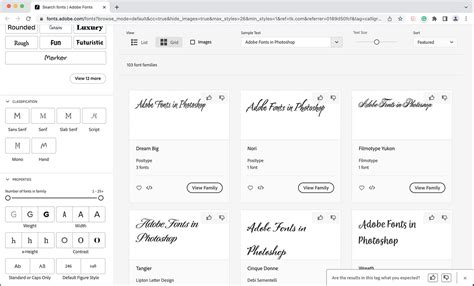
Discover How To Unlock the Creative Power of Fonts in Photoshop and Make Your Designs Come Alive!
Are you ready to unleash the creative power of fonts in Photoshop and make your designs come alive? Have you ever felt like your designs just don't stand out? Or that they look the same as everyone else's? Well, if you want to break the mold and create something unique and eye-catching, then you need to learn how to use fonts to your advantage.
Did you know that fonts can be used to convey emotion and create texture? That's right, fonts are powerful tools for adding personality to your work. But how do you unlock the creative power of fonts in Photoshop?
In this article, we will explore how to use fonts to take your designs to the next level. We will look at how to choose the right font, use typography to create visual hierarchy, and create a unique look and feel with fonts. So, if you want to learn how to unlock the creative power of fonts in Photoshop, then keep reading!
In addition to adding personality to your work, fonts can also be used to create visual hierarchy. This means that you can use the size, weight, and style of the font to draw attention to certain elements on the page. By strategically using fonts, you can create a clear and consistent visual flow that will draw the viewer's eye.
Finally, fonts can also be used to create a unique look and feel. By combining different fonts, you can add a touch of personality that will make your designs stand out from the crowd. With the right combination of fonts, you can create a cohesive look that will make your work stand out.
So, if you want to unlock the creative power of fonts in Photoshop and make your designs come alive, then this article is for you. We have explored how to use fonts to add personality and create visual hierarchy in your work. We hope that you have found this article useful and that you can use it to create unique and eye-catching designs. So, what are you waiting for? Unleash the power of fonts in Photoshop and make your designs come alive!
Introduction
Fonts are one of the most powerful tools for creating powerful and eye-catching visuals. They can give your design a unique and professional look, and they can also be used to create interesting effects. In Photoshop, you can use fonts to create beautiful typography, add text to images, and even create unique logos. In this tutorial, we will show you how to unlock the creative power of fonts in Photoshop and make your designs come alive!
Choosing the Right Font
The first step in using fonts in Photoshop is to choose the right font. There are thousands of fonts available, and it can be overwhelming to try to figure out which one to use. Here are a few tips to help you choose the right font:
- Think about the message you are trying to communicate with your design. Different fonts convey different messages, so choose one that fits the mood you are trying to create.
- Choose a font that is legible. You don't want your text to be difficult to read.
- Consider the size of your design. Different fonts look better at different sizes, so choose one that looks good at the size you are going to use.
Finding Fonts
Once you have an idea of the type of font you are looking for, you can start searching for fonts. There are a few different places to find fonts:
- You can use Photoshop's built-in font library.
Installing Fonts
Once you have found the font you want to use, you will need to install it on your computer. Installing fonts on Windows and MacOS is fairly straightforward. First, download the font you want to use. Then, open the font file and click the “Install” button. Once the font is installed, it will be available in Photoshop.
Using Fonts in Photoshop
Once you have installed the font, you can start using it in your designs. To add text to an image, open the image in Photoshop and select the text tool. Then, click on the image to add text. You can then choose the font, size, and color of the text. You can also adjust the opacity, spacing, and alignment of the text.
Typography Effects
With fonts in Photoshop, you can create interesting typography effects. You can combine multiple fonts to create interesting combinations, use different font sizes to create hierarchy, and add shadows and outlines to the text. You can also add special effects like gradients and textures to create unique looks.
Creating Logos
You can also use fonts to create logos in Photoshop. To do this, you will need to combine multiple fonts and add other elements like shapes and images. You can also use font effects like shadows and outlines to make the logo more interesting. Once you have created the logo, you can save it as a vector file, which will allow you to scale the logo to any size without losing quality.